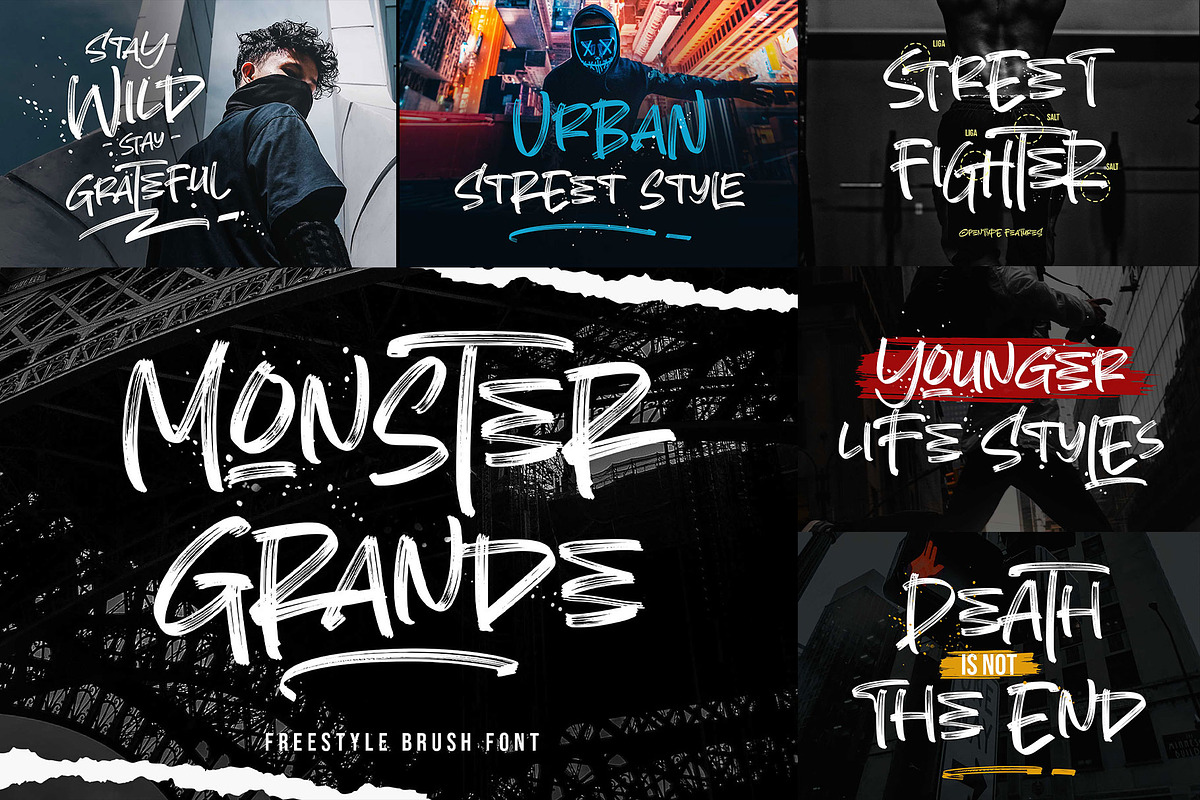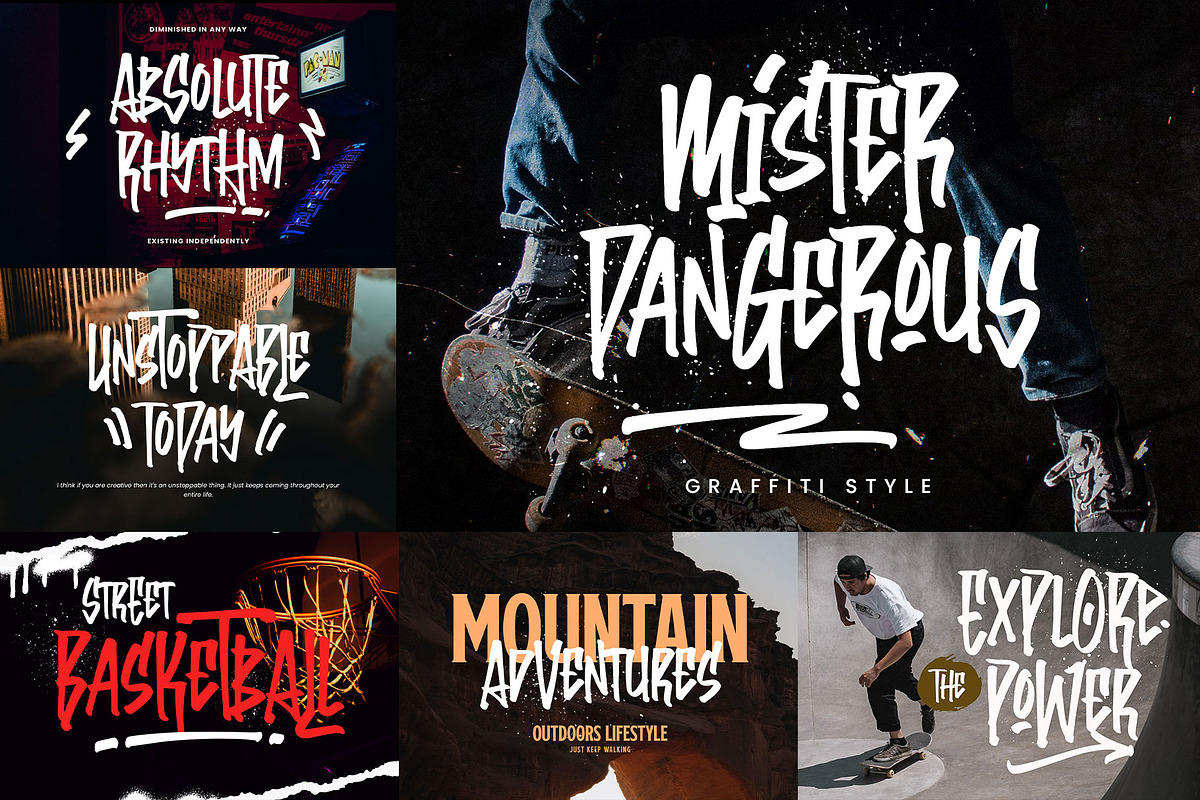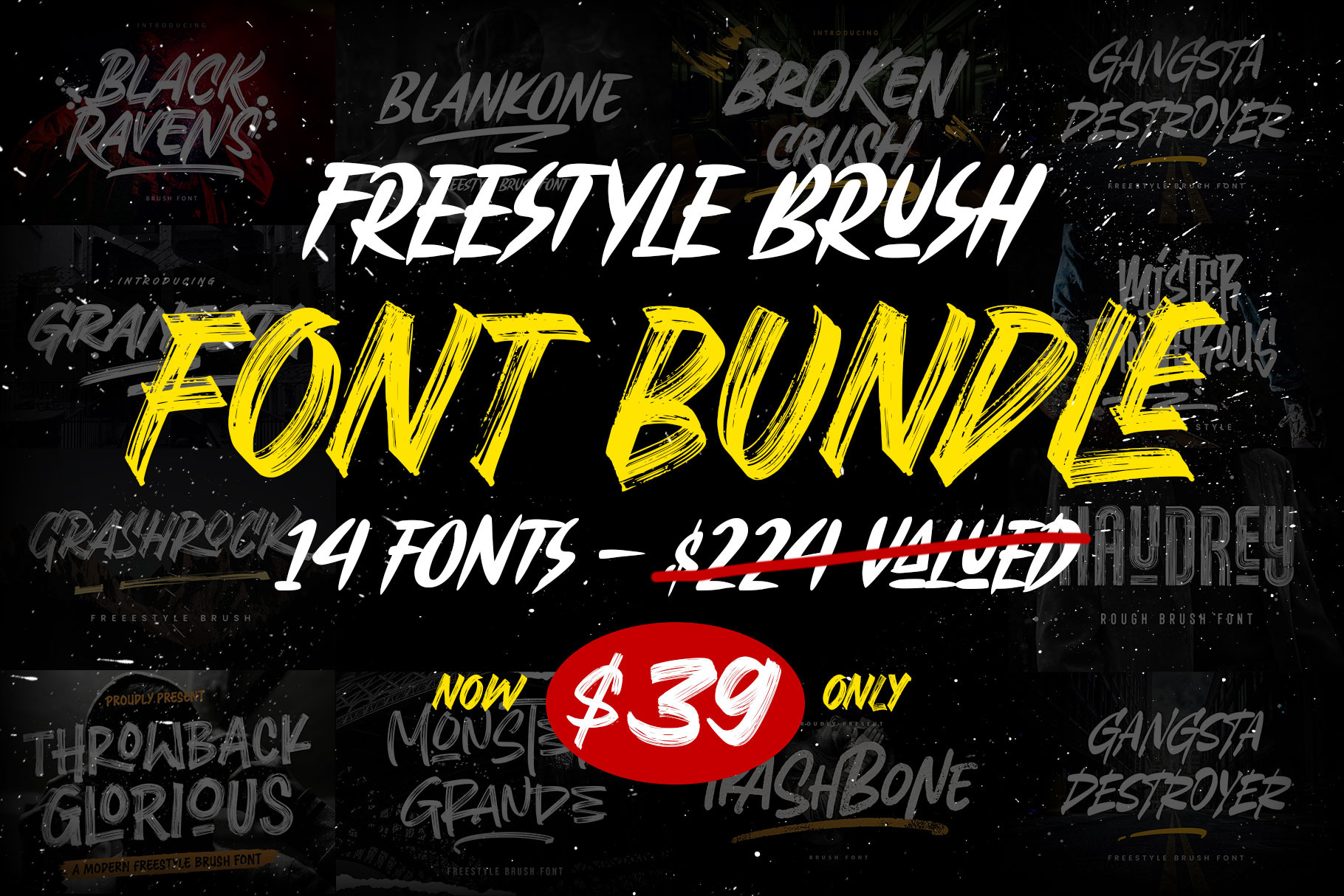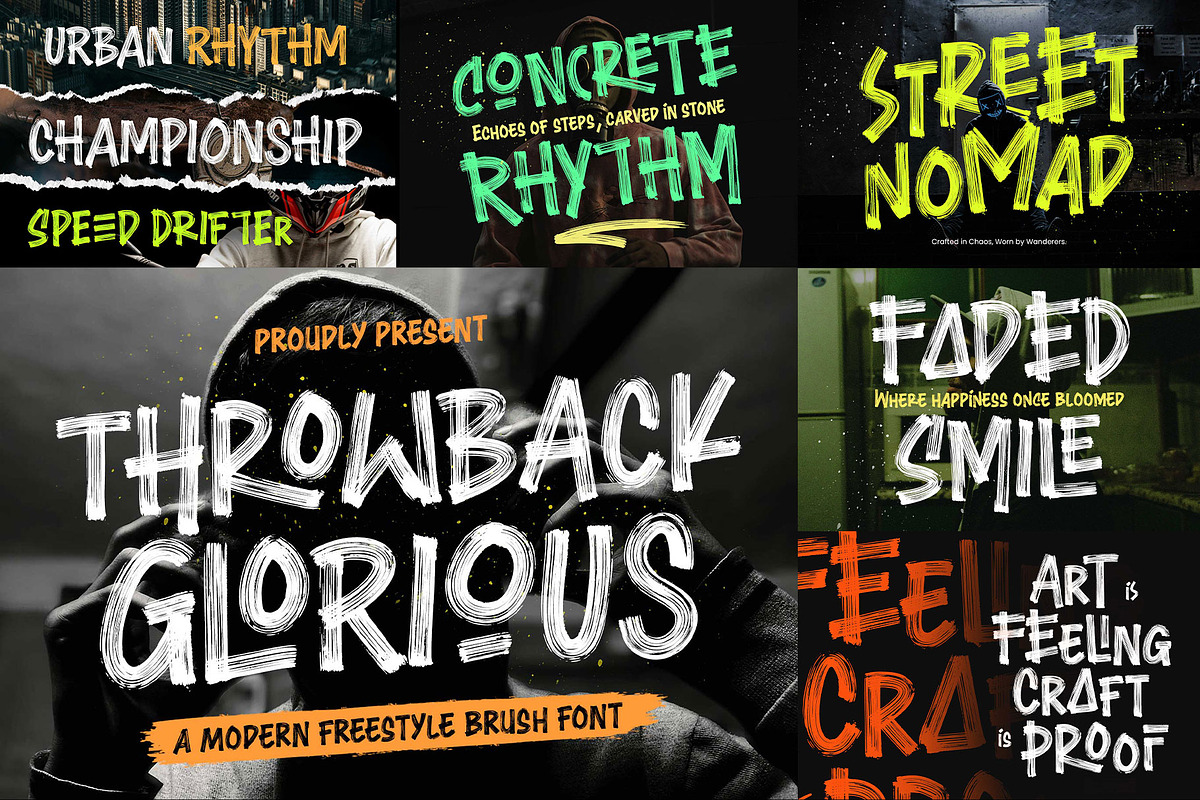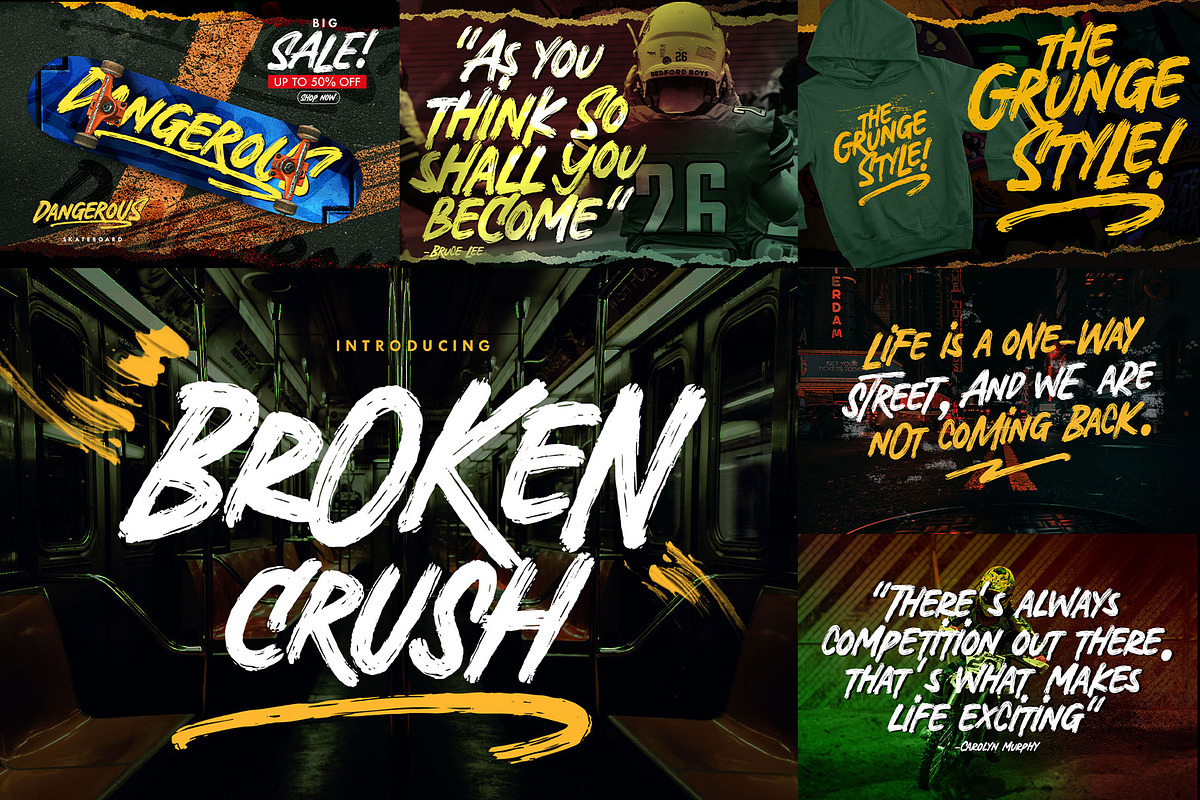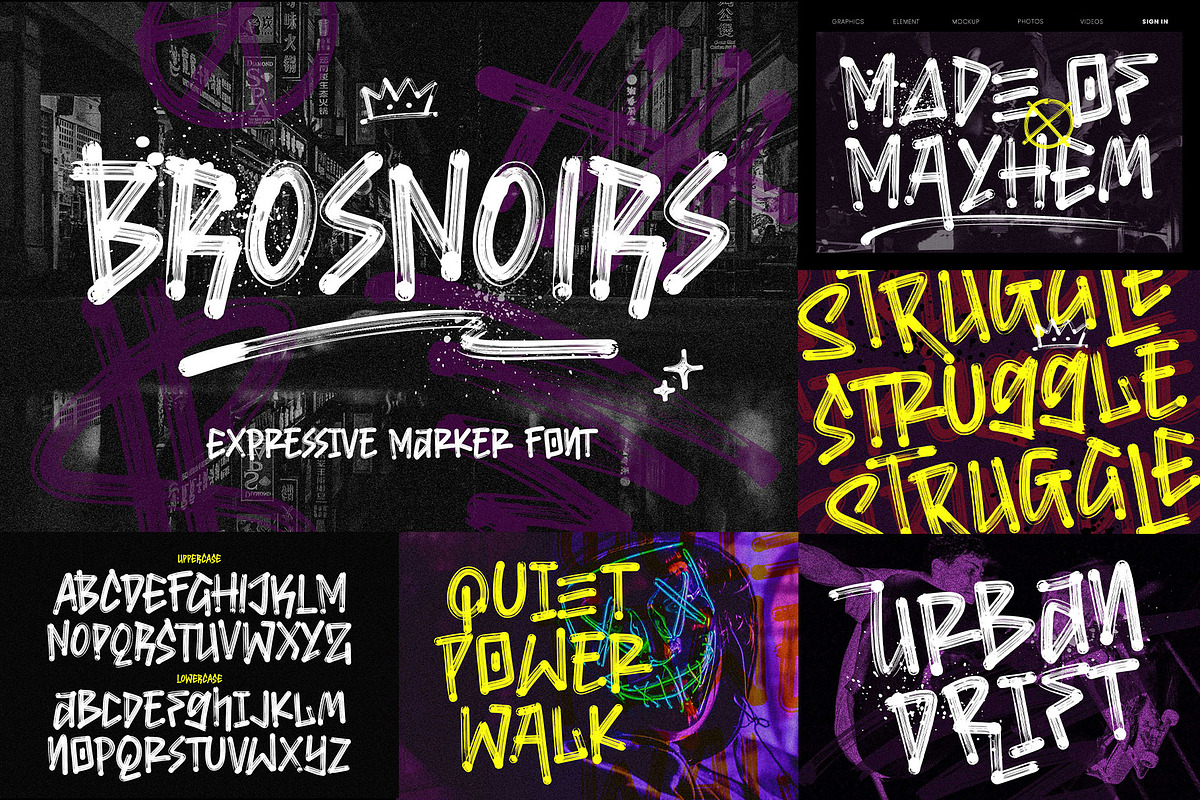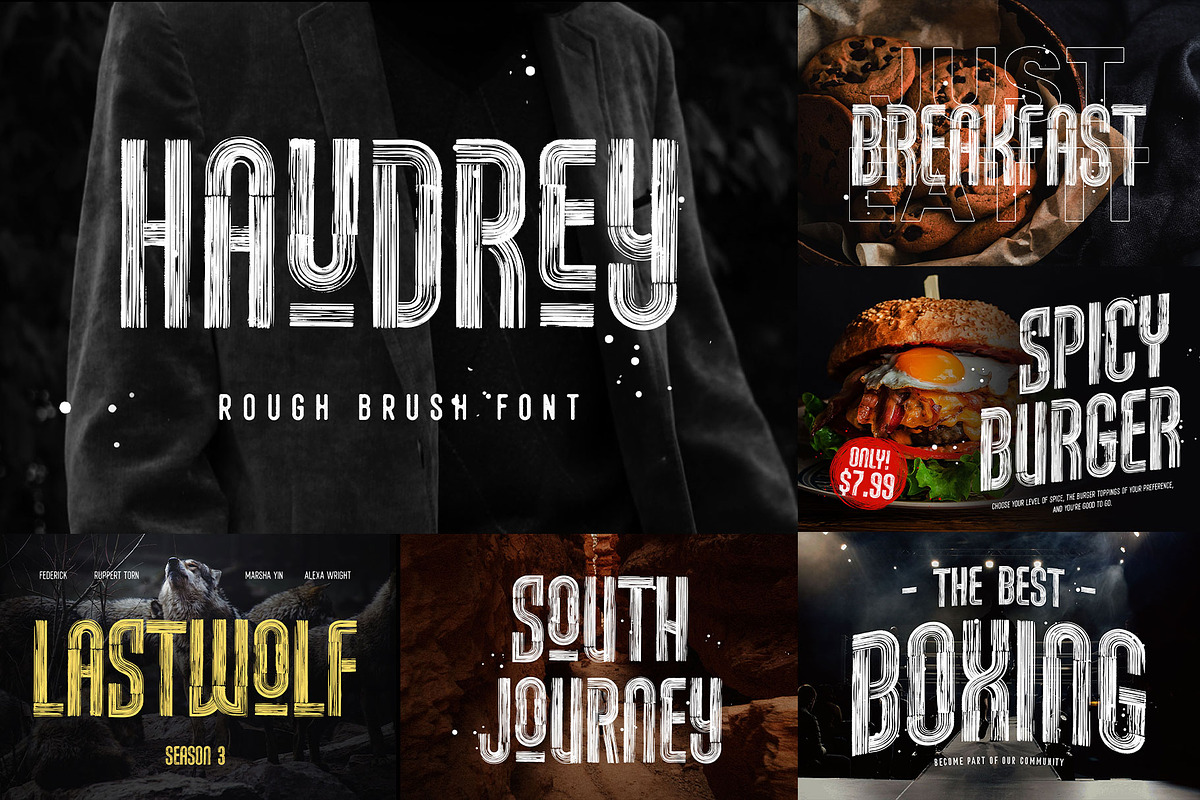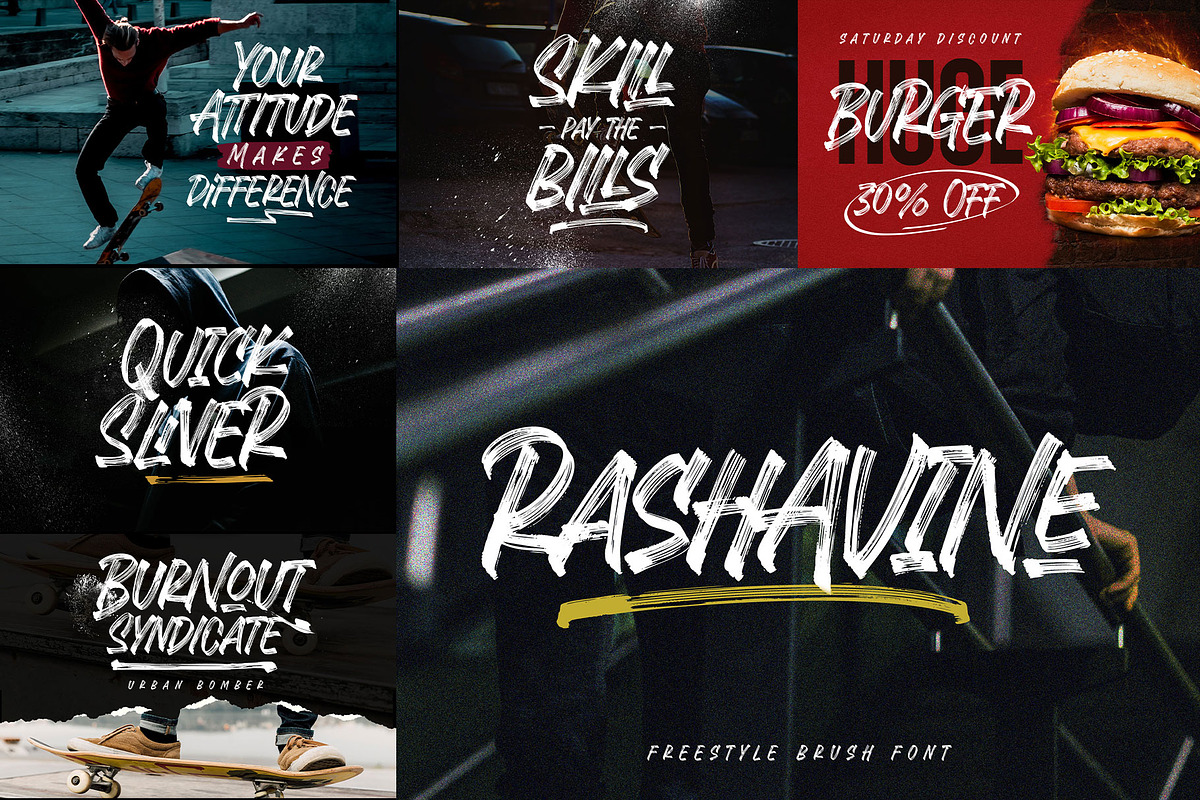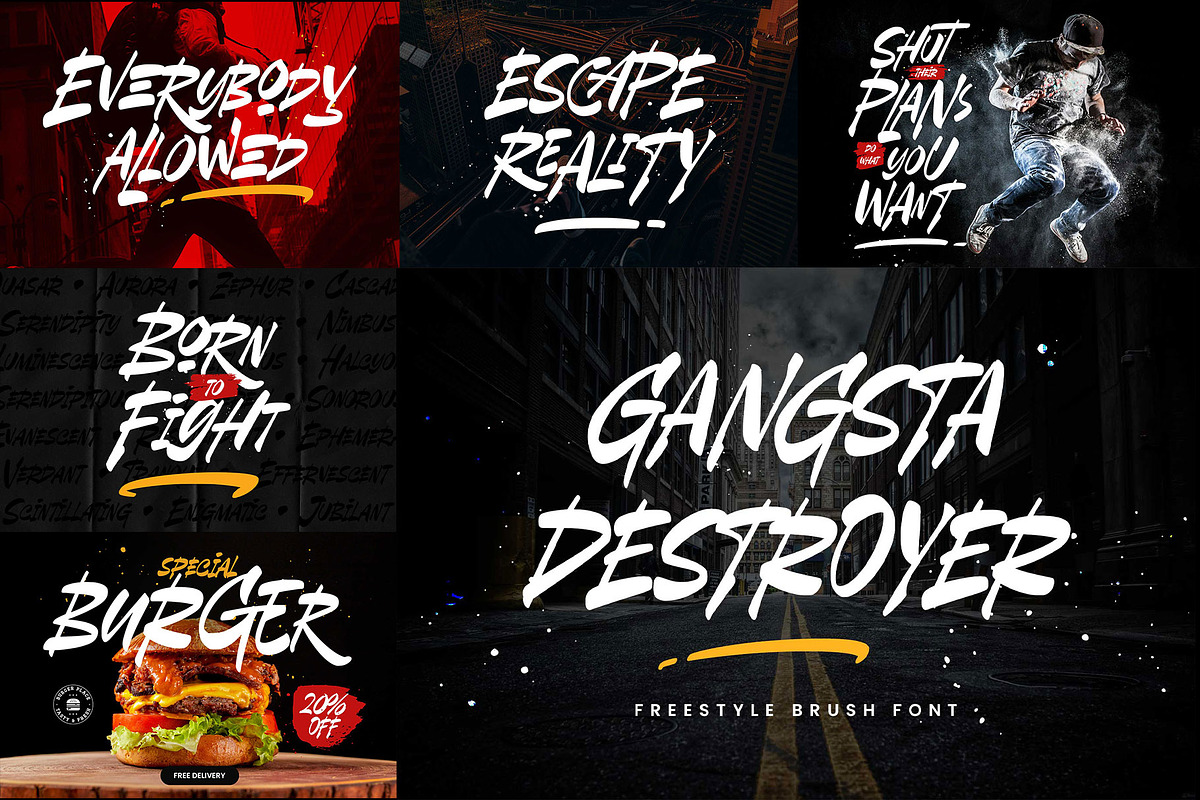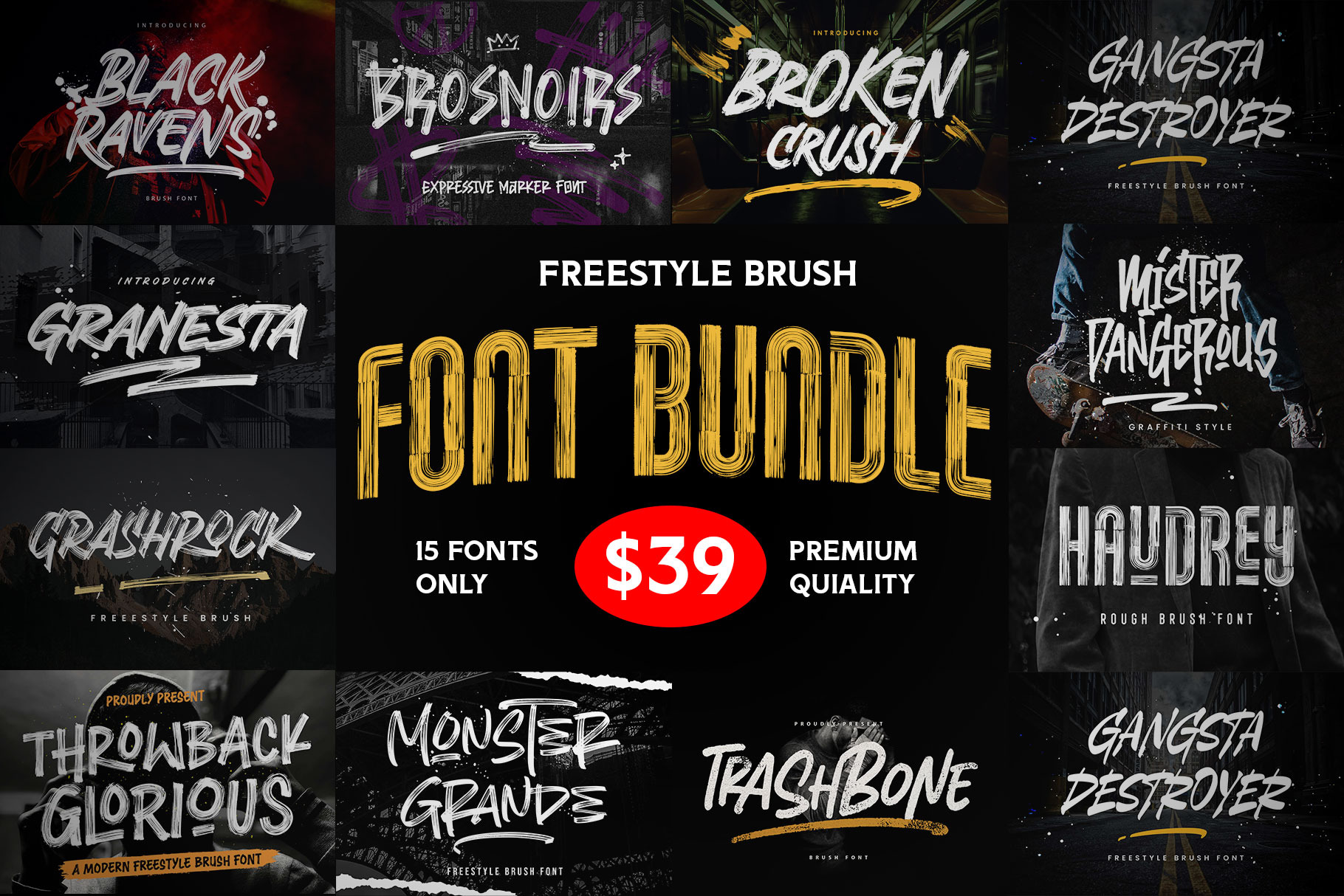
Freestyle Brush Font Bundle
Introducing the Freestyle Brush Font Bundle — a premium set featuring 13 best-selling vintage brush fonts in a variety of styles, including dry brush, solid brush, grunge, graffiti, and more. This high-energy collection is designed to give your creative projects a bold, standout character.
Perfect for sporty themes, urban designs, lifestyle branding, or any project that needs fast, expressive vibes. Each font comes with alternates, swashes, ligatures, and bonus extras, making them ideal for logos, merchandise, posters, apparel, labels, packaging, headers, and beyond.
Fonts included :